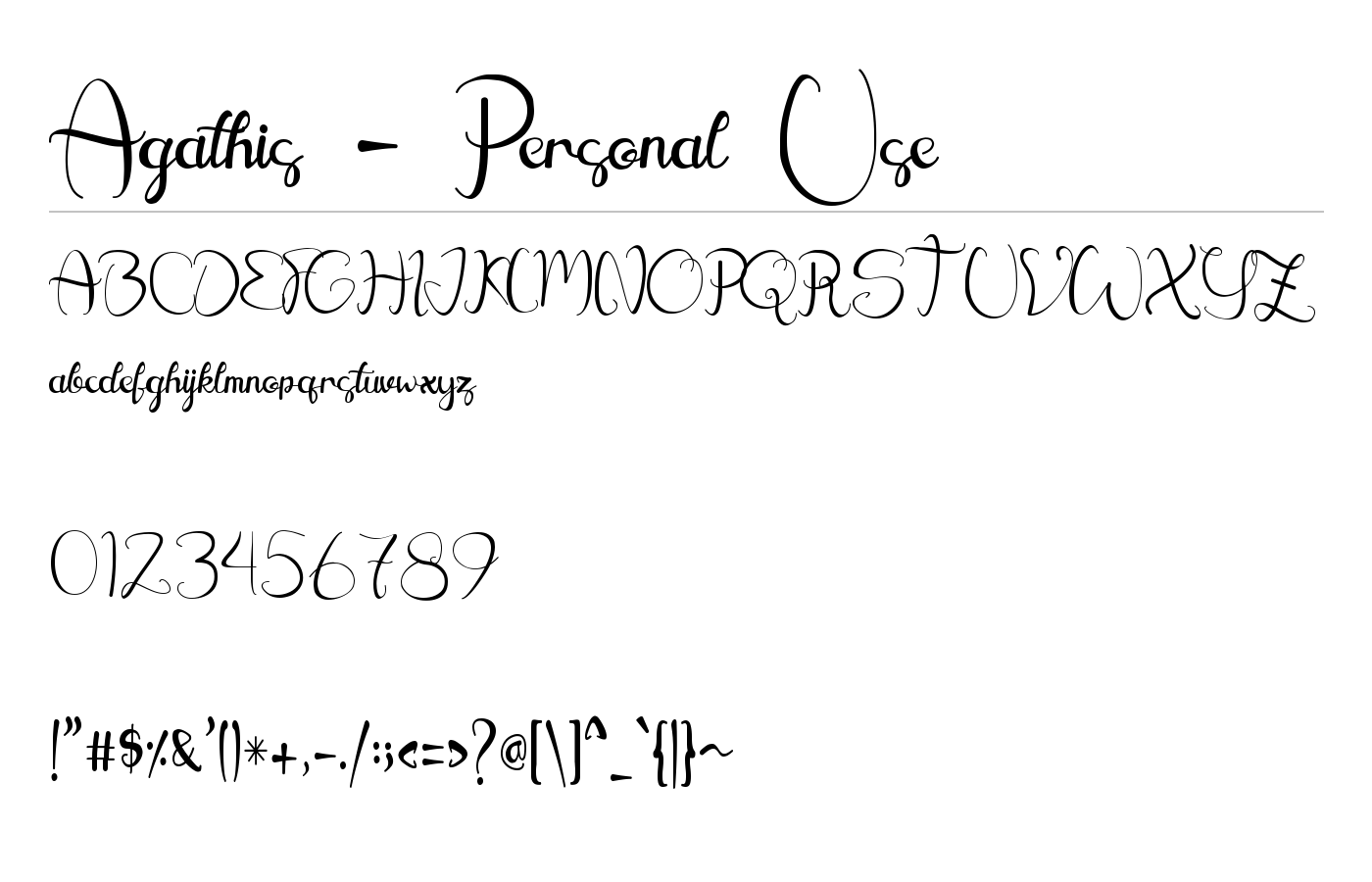
Agathis is a delicate, script-style font featuring graceful, flowing letterforms with a high contrast between thick and thin strokes. Its elegant and decorative character makes it ideal for invitations, branding, and design projects that seek a refined, artistic touch. This font’s distinctive swashes and unique uppercase shapes add a sophisticated flair, perfect for luxury or creative uses where a personal, handcrafted feel is desired.
Agathis Font
About Agathis Font
| Font family | Agathis Font |
| Languages supported | Latin, Symbols, Greek, Thai |
| Designer | Letterfand |